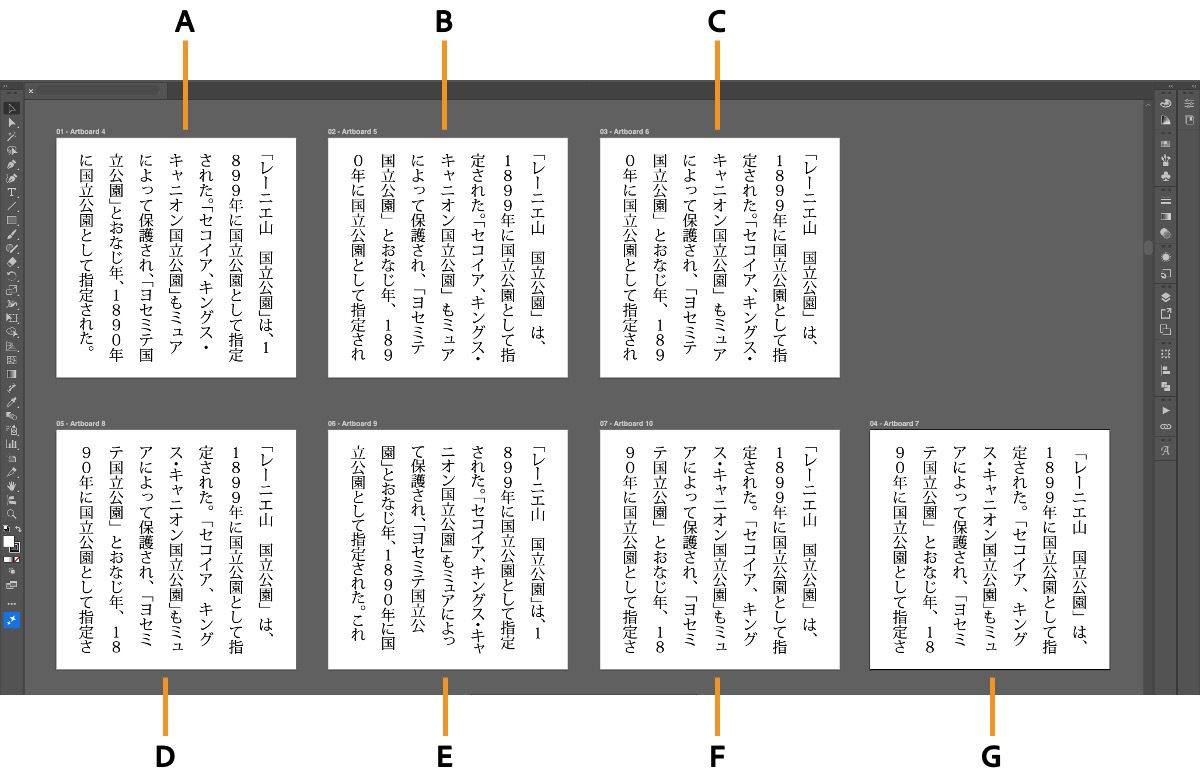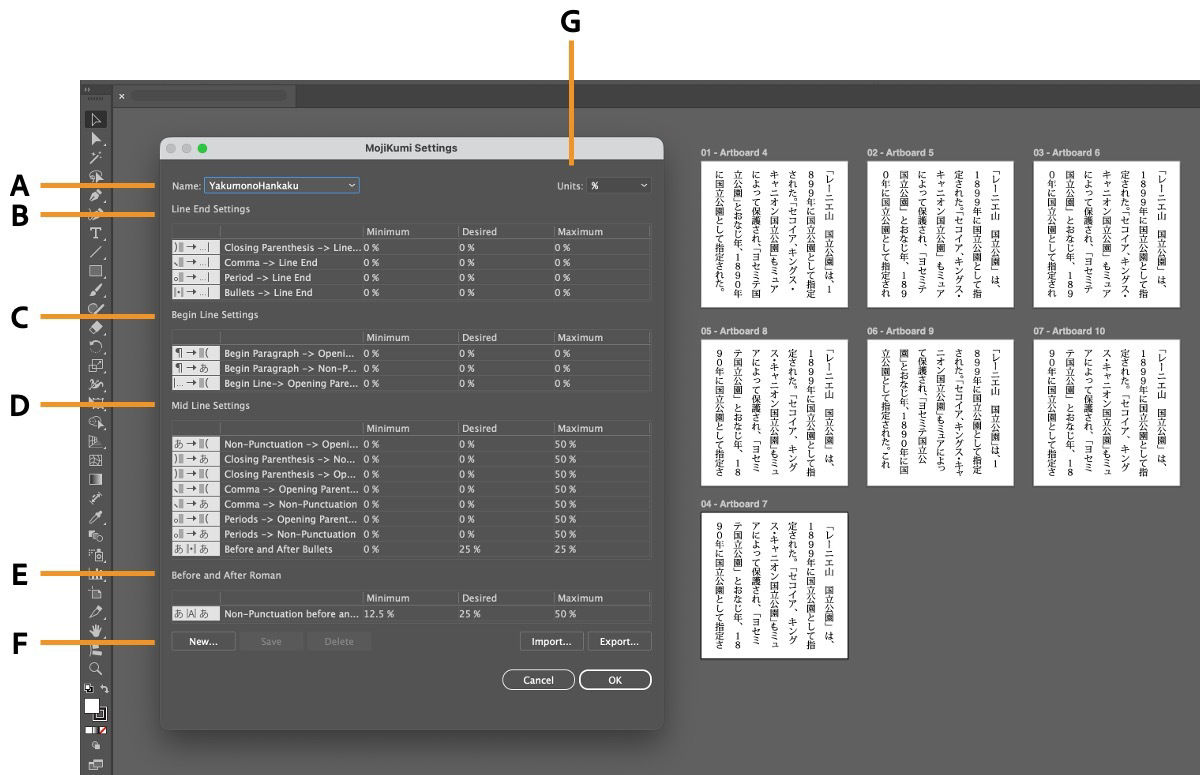
Format Japanese text in Illustrator
Use Mojikumi and Kinsoku settings in Illustrator to control character spacing and line breaks in Japanese text.
When working with Japanese text, both spacing and line breaks play a critical role in readability. Use Mojikumi and Kinsoku Shori in Adobe Illustrator to control spacing and line breaks in Japanese text. Apply predefined sets or create custom rules to ensure proper typesetting and improve readability.
Create a Mojikumi set
A Mojikumi set is a collection of settings that control Aki (spacing) around punctuation, brackets, and Latin text. By applying these settings at the paragraph level, you can create text layouts that follow Japanese typesetting rules and improve readability.
Illustrator provides several predefined Mojikumi sets designed for Japanese typesetting. By choosing an appropriate set for your layout or purpose, spacing and punctuation placement are automatically adjusted.
Choose Type > Mojikumi Settings, and then select New....
Enter a name and choose a base set. Select None if you don't want to base it on an existing set.
Mojikumi Settings dialog in Adobe Illustrator showing spacing rules, minimum, desired, and maximum values, and priority settings for Japanese text composition.
Create and customize a new Mojikumi set by specifying spacing values and priorities for different character types.
A. Name B. Line End Settings C. Begin Line Settings D. Mid Line Settings E. Before and After Roman F. New G. Units
Adjust spacing values as required.
Specify Minimum, Desired, and Maximum values for each line setting.
Set Priority.
In the Priority settings, set a priority level (1–9) for each character type. Illustrator applies lower numbers first, and 0 removes priority.
Apply a Mojikumi set
Select the text.
In the Paragraph panel, choose one of the following options in the Mojikumi Set drop-down:
• None: Turns off the use of Mojikumi.
• GyomatsuYakumonoZenkaku/Hankaku: Adjusts the spacing of punctuation at the end of a line to 50% (half-width) or 0% (full-width). The spacing between Japanese text and alphanumeric characters is set to 0% as the desired value, reducing unnatural gaps and ensuring more balanced typesetting, even in horizontal text with many alphanumeric characters.
• YakumonoHankaku: Uses half-width spacing for punctuation.
• GyomatsuYakumonoHankaku (Default): Uses full-width spacing for most characters except the last character in the line. Uses full-width spacing for most characters except the last character in the line.
• GyomatsuYakumonoZenkaku: Uses full-width spacing for most characters and the last character in the line.
• YakumonoZenkaku: Uses full-width spacing for punctuation.
• TsumeGumi: Primarily adjusts spacing between alphanumeric and Japanese text, as well as spacing around punctuation, reducing unnecessary gaps between characters.
• BetaGumi: Arranges Japanese characters evenly based on full-width character size, with no extra spacing between characters. By minimizing variation in spacing, it creates a consistent reading rhythm, making long passages such as body text easier to read.
Adobe Illustrator workspace showing seven artboards arranged in a grid, each displaying Japanese text with a different Mojikumi setting. The examples are labeled A through G as follows: A (YakumonoHankaku), B (GyomatsuYakumonoHankaku), C (GyomatsuYakumonoZenkaku), D (YakumonoZenkaku), E (GyomatsuYakumonoZenkakuOrHankaku), F (TsumeGumi), and G (BetaGumi). The Character panel with Mojikumi options is visible on the right.
Apply Mojikumi presets applied to Japanese text across multiple artboards in Illustrator to fine-tune the text layout with greater precision.
A. YakumonoHankaku B. GyomatsuYakumonoHankaku C. GyomatsuYakumonoZenkaku D. YakumonoZenkaku E. GyomatsuYakumonoZenkakuOrHankaku F. TsumeGumi G. BetaGumi
• New Mojikumi sets, such as BetaGumi and TsumeGumi, have been added.
• The updated Aki Processing for Latin Text helps you adjust spacing for Half-width Alphanumeric (Non-punctuation) Latin Text, which can now be set separately for letters and numbers. This allows more natural spacing between Japanese text and Latin characters. If you use files with these settings, update Illustrator to the latest version, as older versions, like Illustrator 30.3 and below, may not preserve them correctly.
Configure TsumeGumi or BetaGumi
Select the text.
In the Character panel:
• Set kerning to Metrics (TsumeGumi).
• Set kerning to Metrics-Roman Only (BetaGumi).
In the Paragraph panel, select TsumeGumi or BetaGumi from the Mojikumi drop-down.
In the OpenType panel, turn on Proportional Metrics (TsumeGumi).
Create a Kinsoku set
Choose Type > Kinsoku Shori Settings, and then select New Set.
Enter a name and choose a base set. Select None if you don't want to base it on an existing set.
• Push Out Only: Always moves characters down to the next line to prevent prohibited characters from ending or beginning a line. A push-in is not attempted.
Use Bunri-Kinshi
Select the text and then open the Paragraph panel.
In the Paragraph panel menu, select Bunri-Kinshi to prevent selected text from breaking across lines.
Tip
If a specific text string spans two lines and you don't want it to be split, select the text and apply Bunri-Kinshi from the Character panel flyout menu. This prevents the text from breaking across lines.